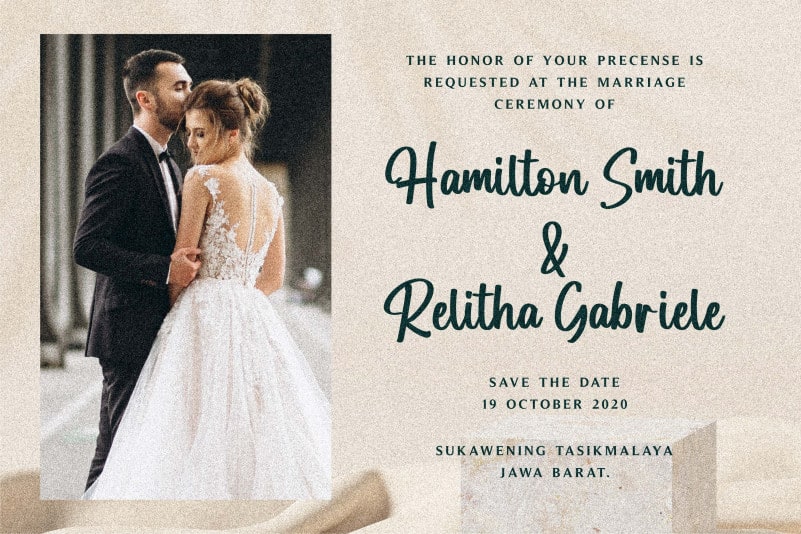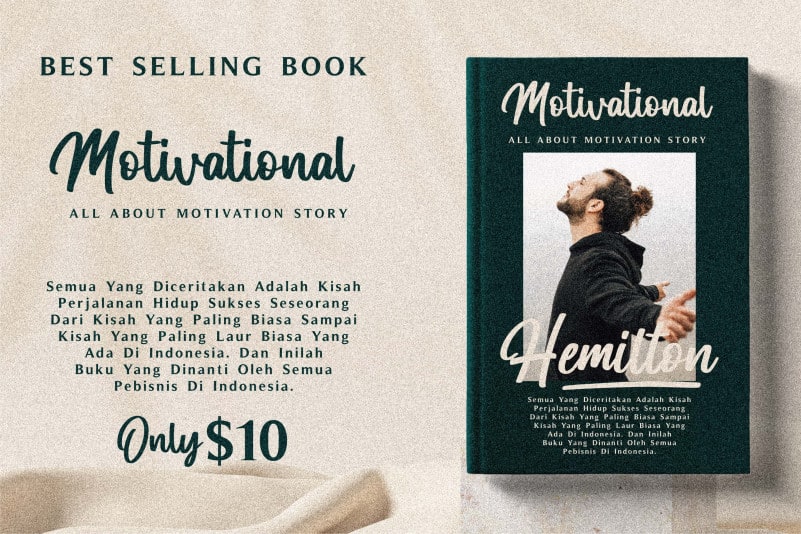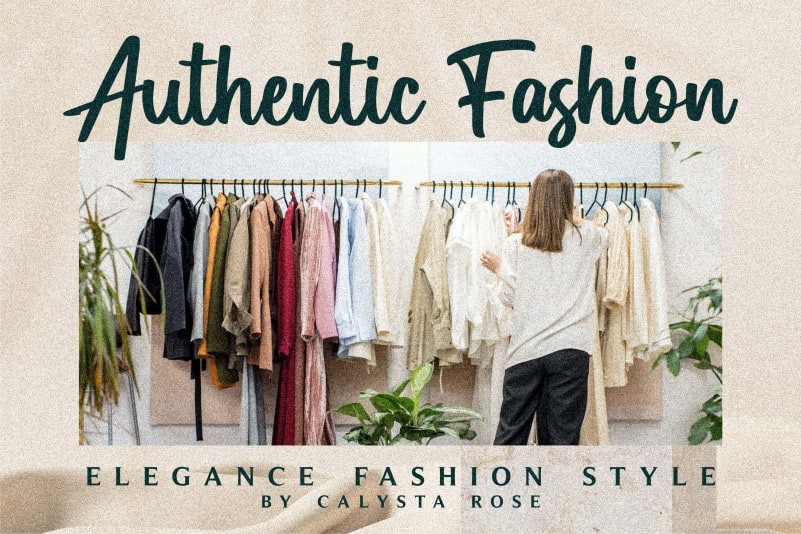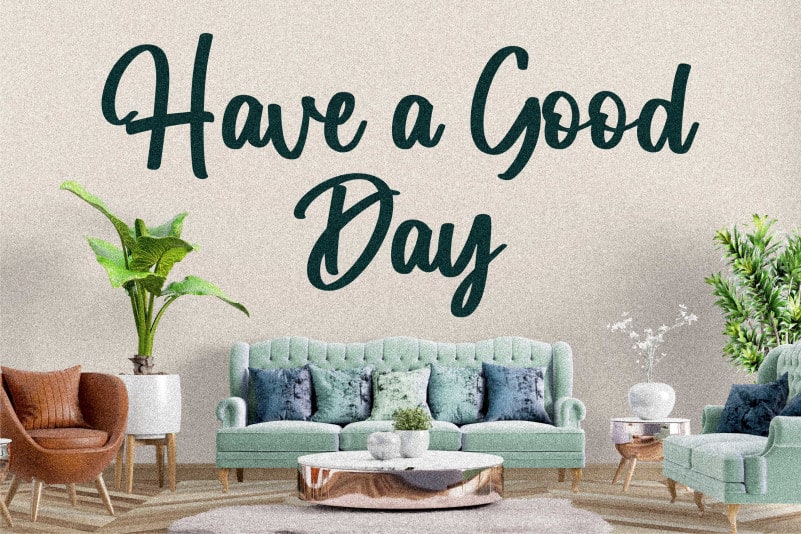
Hemilton Script Font
Hemilton Script Font is an enchanting handwritten font. This versatile script font has a wide spectrum of applications ranging from greeting cards to headlines and is guaranteed to add a romantic feel to your next project.